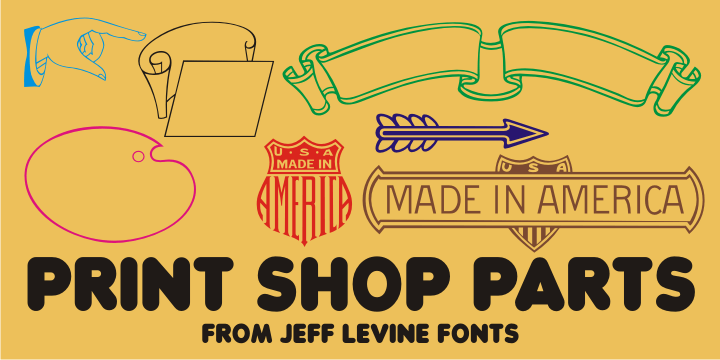
Print Shop Parts
Print Shop Parts JNL has a nostalgic assortment of blank sign panels, a pointing hand, decorative embellishments and even an assortment of "Made in U.S.A.", "Made in America" and "Made in United States" emblems located on the 1-9 keys.
All are from vintage type catalogs and sign painting instruction books from the early 1900s.
When scaled up, the blank sign panels can be used for small signs or price tags as originally made in years past. During the early part of the 20th Century, it was common to create show cards in attention-getting shapes matched with beautiful hand lettering.